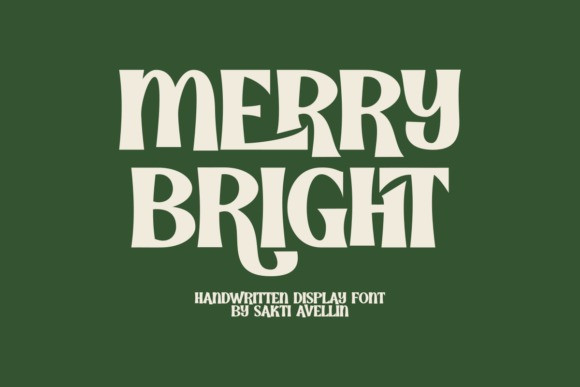
Merry Bright Font
Designer: Sakti Avellin
Merry Bright Font is a Handwritten Display Font with a bold, fun, and vibrant aesthetic, perfectly designed to capture the spirit of the Christmas holidays and year-round joy.
MerryBright not only offers a beautiful basic look, but also comes with advanced typography features such as alternates and ligatures on uppercase letters.
The MerryBright font is very versatile and can be used for a variety of creative projects, such as Branding & Logos, Packaging, Christmas greeting cards, party invitations, banners, event posters, tote bags, mugs, stickers, t-shirts, magazine headers, or bold posters.
Create “Merry” and “Bright” designs with this characterful font!